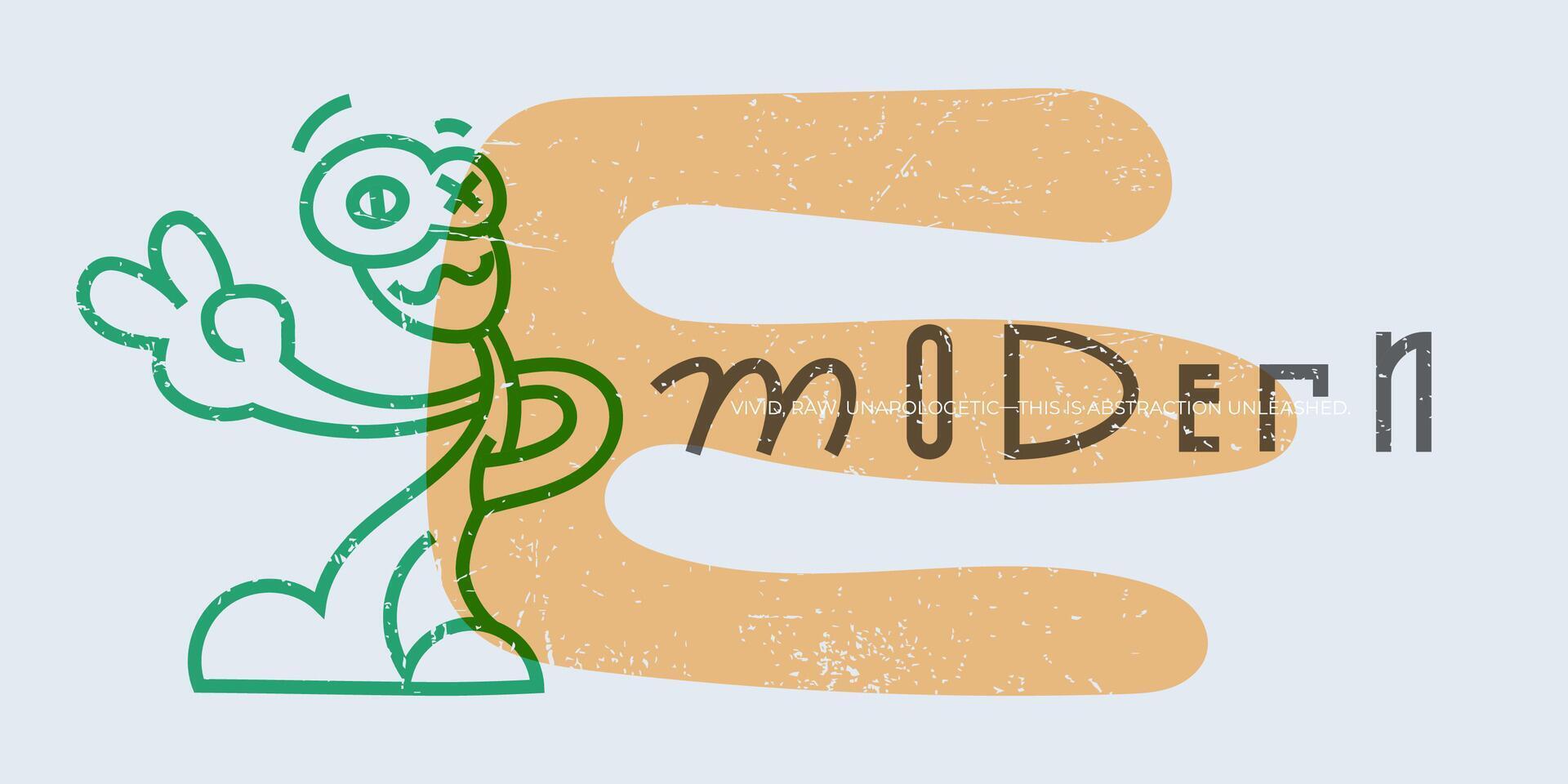
Graffiti-inspired poster template with unique character, vibrant abstract design, and retro scratches. Modern art feel with original font. Fully editable for custom creative use Pro Vector